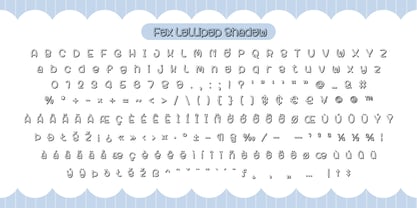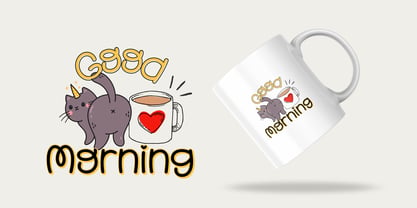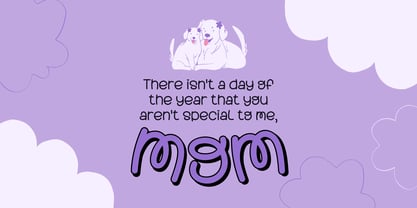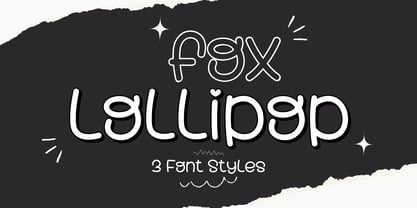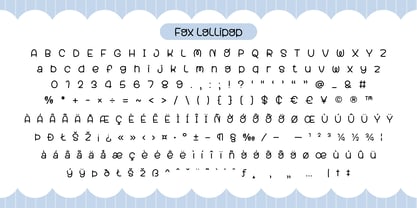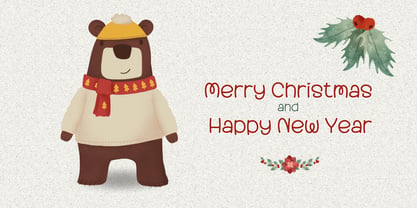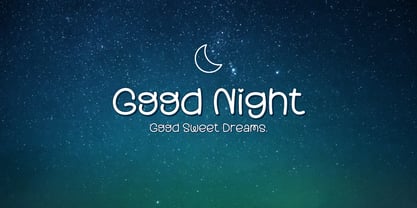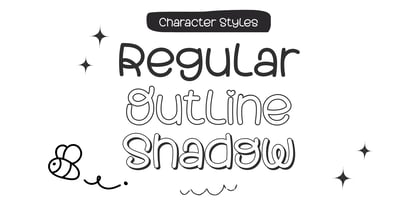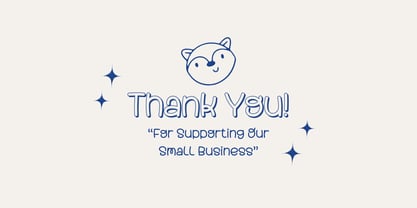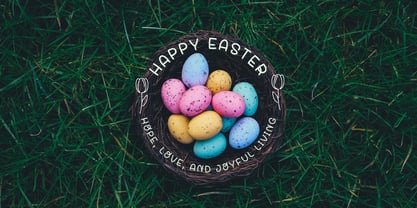
Fox Lollipop
by Fox7
The Fox Lollipop Font Family was designed by Rattana Rattanawan and published by Fox7. Fox Lollipop contains 3 styles and family package options. More about this family
Fox Lollipop is a fun and quirky font perfect for adding a dose of sweetness to your creative projects!, this font is ideal for greeting cards, children's books, t-shirts, mugs, stickers, and more.
This playful typeface comes in 3 delightful styles:
🌸 Regular – a clean, rounded style that’s smooth and friendly
🌸 Outline – a light and airy version, perfect for layering or coloring
🌸 Shadow – bold and fun with a 3D-like pop effect
Whether you're designing for kids, creating cute merch, or just want to bring a smile to your audience, Fox Lollipop is the font that brings joy to every letter.
Designers: Rattana Rattanawan
Foundry: Fox7